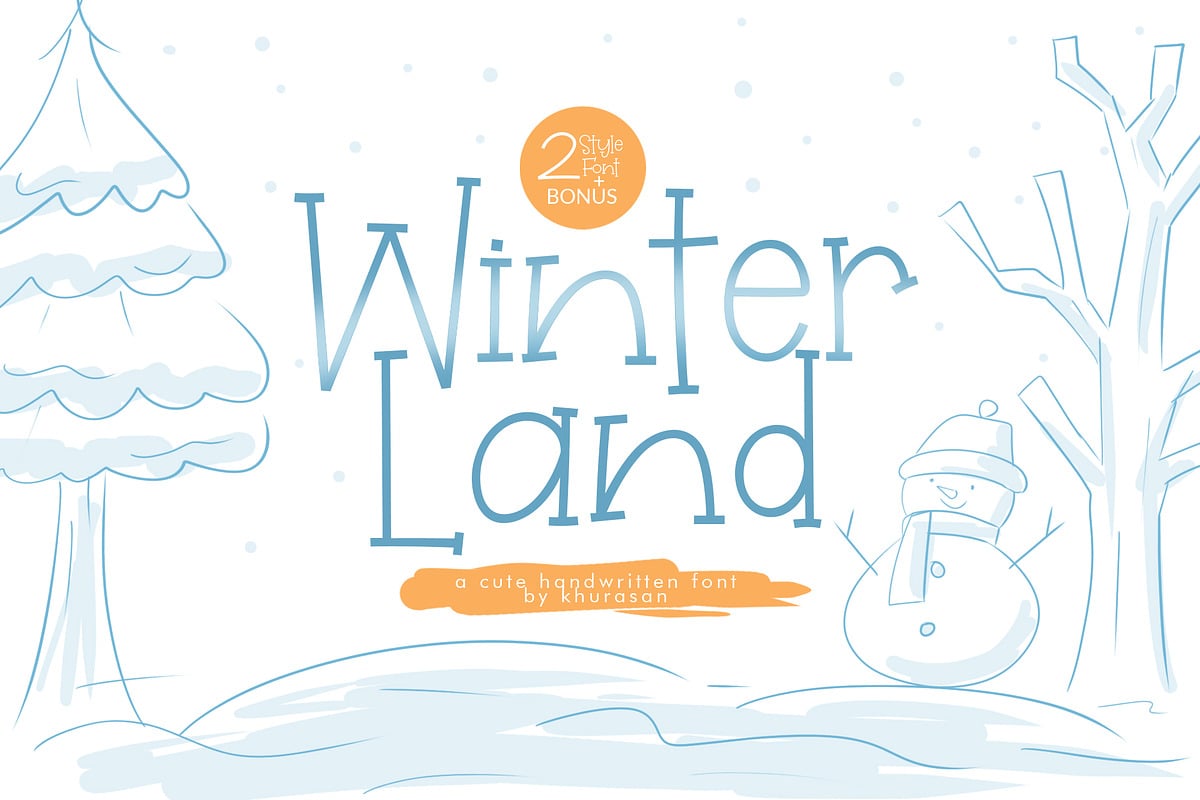
Winterland Font
Winterland font brings winter magic to your designs with two stunning styles - regular and slant variations. This display typeface features awesome character design that's perfect for business cards, posters, logos, magazines, covers, banners, t-shirts, and headers. Whether you're creating small-scale branding or large-scale artwork, Winterland delivers exceptional results. Features: OpenType Features Uppercase & Lowercase characters Numeral & Punctuation marks PUA Encoded Multilingual s...